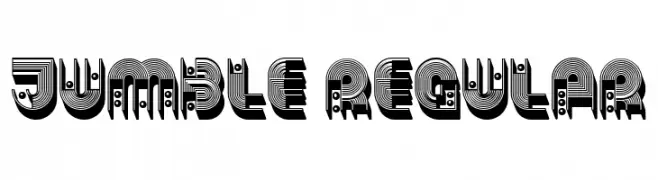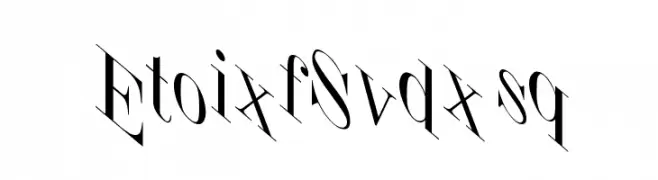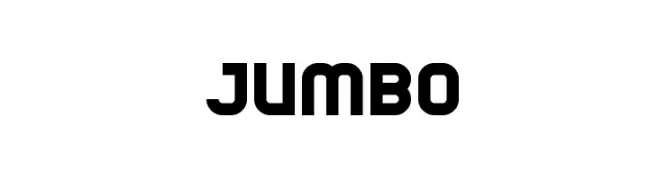
A bold, geometric font with a pixelated, retro digital style.
A bold, decorative font with intricate line work and vintage-modern appeal.
A playful, bold font with rounded, bubble-like characters.
A classic serif font with high contrast and elegant, sharp serifs.
A bold, decorative font with geometric shapes and intricate patterns.
An elegant italic font with high contrast and elongated serifs.
A bold, geometric font with rounded characters and a modern industrial feel.